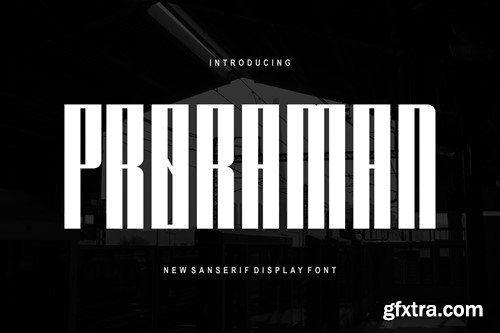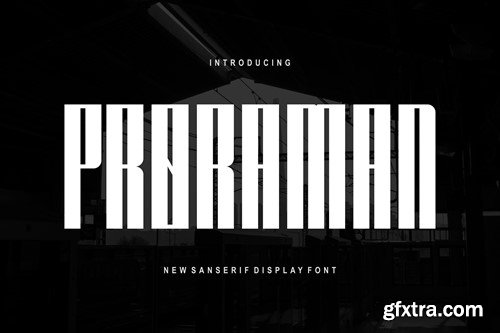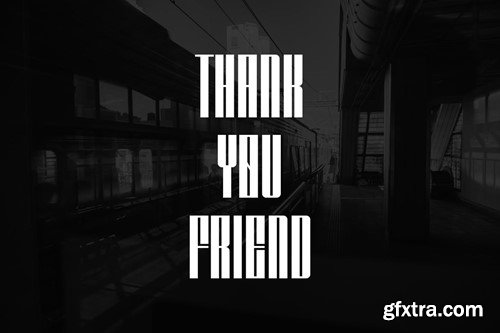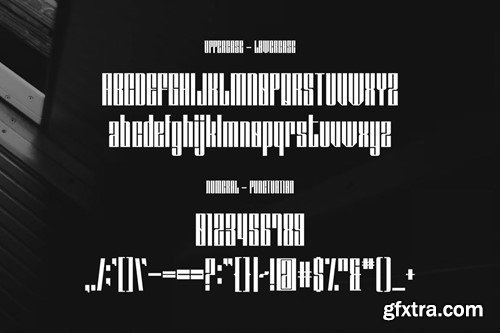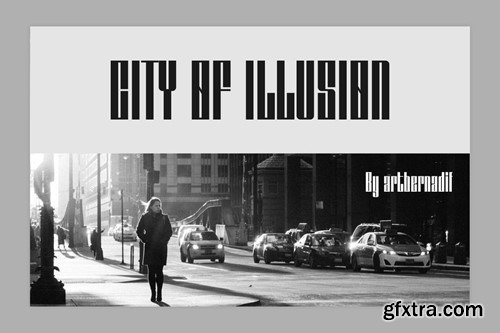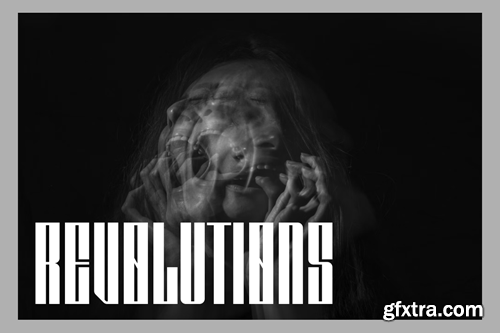
プロランマ フォント ZHJKG8V
Proraman Font
Introducing our new product Proraman Font - Modern Font Proraman Font- Modern Font is a bold and authentic display font. The font is suitable for any branding project like logo, t-shirt printing, esport, and many more. outstanding in a wide range of contexts. availlable